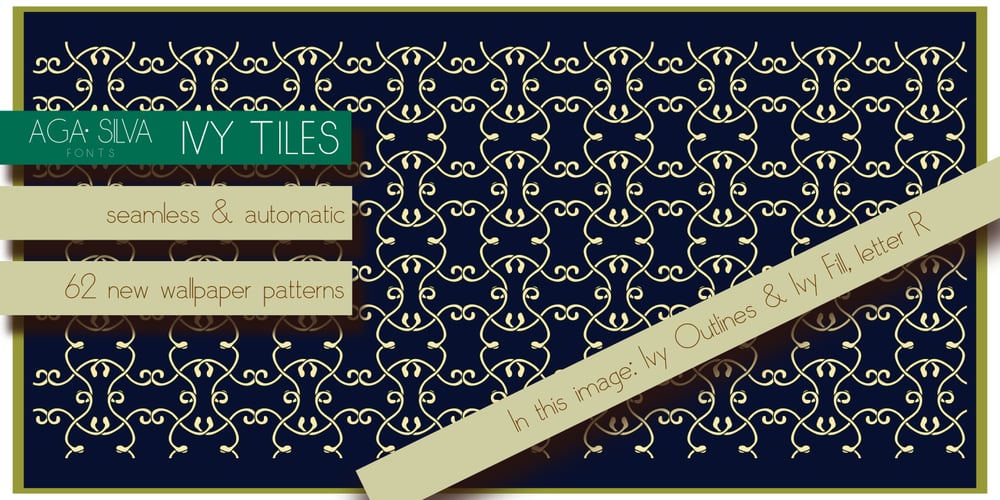
Ivy Tiles Font Family was designed by Aga Silva and published by Aga Silva. Ivy Tiles contains 3 styles and family package options. Ivy Tiles was designed as a set of 62 seamless, endless patterns accompanied by font map(s). They well might be a base for designing your own wallpapers, textiles, glass wall opaque foil privacy screens or even wooden fancy trellises – the choice is yours 🙂 The font features simple, fancy, intricate patterns in three variants (Fill, Outlines and Stencil). – Outlines were designed with an idea of serving as an unobtrusive pattern on its own, or as a playful addition to the Fill pattern. – Fill pattern was designed to give more statement to Outlines, which in some cases may be too subtle for the job you have to be done. – Stencil has the most robust shapes. I have thrown this one in just in case you might want to do some DIY stencils. You may also use this file as a starting point for some CNC cut fancy trellis, however please do match pattern to the cutting method (ie. CNC, bolt cutter etc.) to the pattern and the material you intend to cut. -By overlaying Outlines & Fill (or Stencil & Fill) and manipulating those two layers you may get “more flat” or “more 3D” look. Have fun! Note: Please be aware that you may need to prepare those patterns in order to work with them in CAD-CAM or if you intend them for bolt cutter etc.